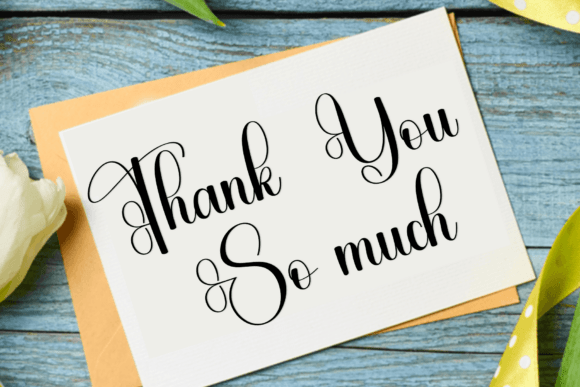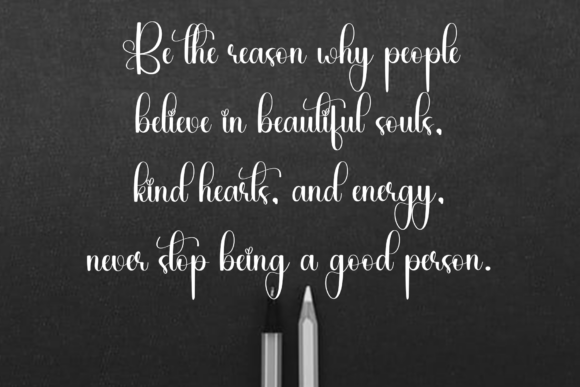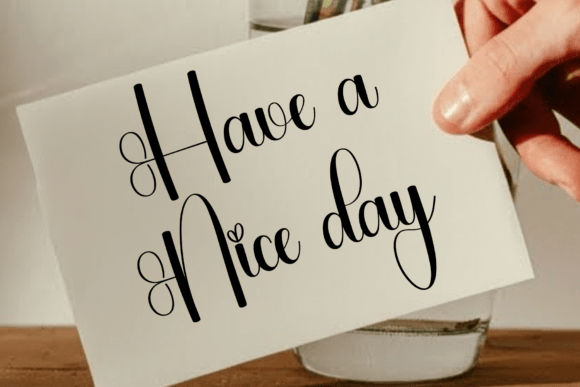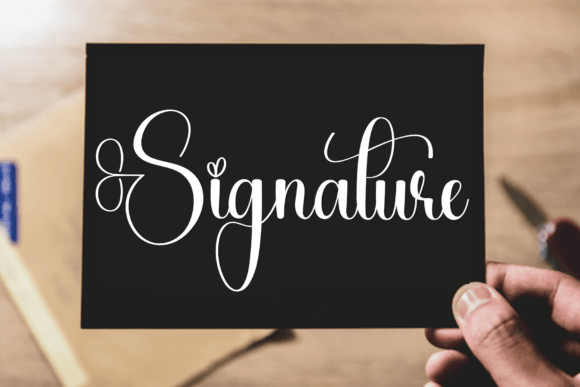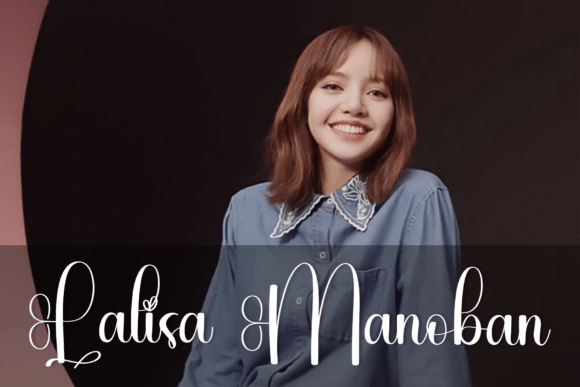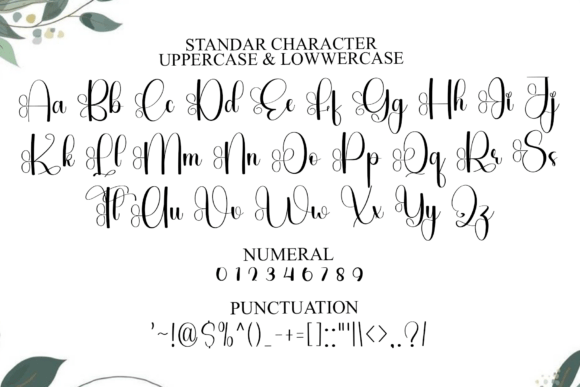
Introducing Butterfly Valentine Font: The Perfect Choice for Your Creative Projects
Are you looking for a font that can add a touch of warmth and friendliness to your designs? Look no further than the Butterfly Valentine Font. This casual and creative font is perfect for personal projects, invitations, social media graphics, and more. Its round, playful strokes create a relaxed and approachable feel that’s sure to capture the hearts of your audience.
The Charm of Butterfly Valentine Font
The Butterfly Valentine Font boasts a charming, hand-drawn aesthetic that adds a fun and unique touch to any design. Its playful strokes and rounded edges create a sense of whimsy and playfulness, making it perfect for projects that require a personal touch. Whether you’re designing invitations, greeting cards, or social media graphics, this font is sure to bring a smile to your audience’s faces.
Key Features of Butterfly Valentine Font
- Casual and Creative: The Butterfly Valentine Font has a relaxed and casual vibe that’s perfect for personal projects and social media graphics.
- Hand-Drawn Aesthetic: The font’s hand-drawn aesthetic adds a unique and playful touch to any design.
- Round and Playful Strokes: The font’s round and playful strokes create a sense of warmth and friendliness.
- Perfect for Invitations: The font’s charming and whimsical feel makes it perfect for invitations, greeting cards, and other personal projects.
Uses of Butterfly Valentine Font
The Butterfly Valentine Font is versatile and can be used for a variety of projects, including:
- Personal Projects: Use the font for personal projects, such as scrapbooking, journaling, and crafting.
- Invitations: The font is perfect for creating invitations for parties, weddings, and other special occasions.
- Social Media Graphics: Use the font to create engaging social media graphics, such as Facebook posts, Instagram stories, and Twitter headers.
- Greeting Cards: The font is perfect for creating greeting cards for special occasions, such as birthdays, holidays, and anniversaries.
Why Choose Butterfly Valentine Font?
There are many reasons why you should choose the Butterfly Valentine Font for your creative projects. Here are a few:
- Unique and Playful: The font’s unique and playful aesthetic sets it apart from other fonts.
- Easy to Read: The font is easy to read, making it perfect for body text and headings.
- Versatile: The font can be used for a variety of projects, from personal projects to commercial projects.
- High-Quality: The font is of high quality, with crisp and clear lines that will look great in any design.
Tips for Using Butterfly Valentine Font
Here are a few tips for using the Butterfly Valentine Font in your designs:
- Use it for Headings: The font is perfect for headings and titles, where you want to make a bold statement.
- Pair it with Other Fonts: The font pairs well with other fonts, so feel free to experiment with different combinations.
- Use it for Body Text: The font is easy to read, making it perfect for body text and paragraphs.
- Experiment with Colors: The font looks great in a variety of colors, so don’t be afraid to experiment and find the perfect color for your design.
The Butterfly Valentine Font is a charming and creative font that’s perfect for personal projects, invitations, social media graphics, and more. Its unique and playful aesthetic adds a fun and unique touch to any design, making it a great choice for designers and crafters. With its ease of use, versatility, and high-quality design, this font is sure to become a favorite in your font collection.